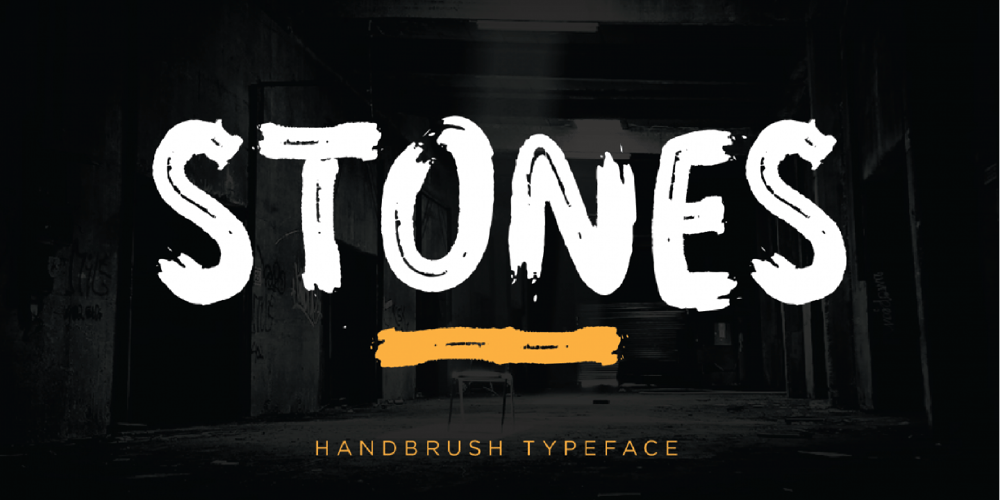
Stones Font Family was designed by Fahri Rizal and published by Fana Studio. Stones contains 1 styles and family package options. STONES is a supercharged, street-wise brush font bursting with energy. With extra attention to quick strokes and sharp details, STONES is guaranteed to deliver an unapologetically loud & fast-paced message; ideal for logos, apparel, quotes, product packaging, or anything which needs a typographic turbo-boost.What you get :Numeral and PunctuationInternational LanguageWorks on PC & MacSimple installationsAccessible in the Adobe Illustrator, Adobe Photoshop, Adobe InDesign, even works on Microsoft Word.Thank you for your purchase! Hope you enjoy with our font!